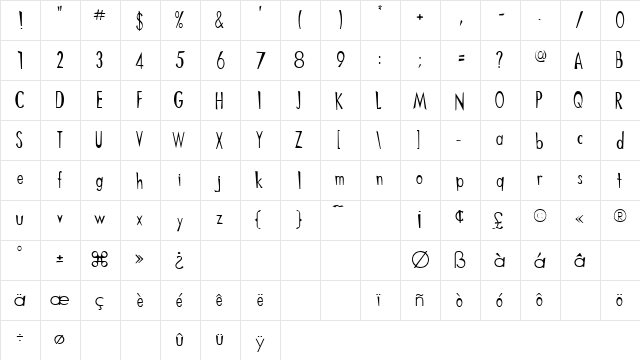
Chinese Normal
Design Context for Chinese Typeface
Chinese offers clean, dependable letterforms without strong stylistic allegiance, making it a practical choice for designers who need flexibility.